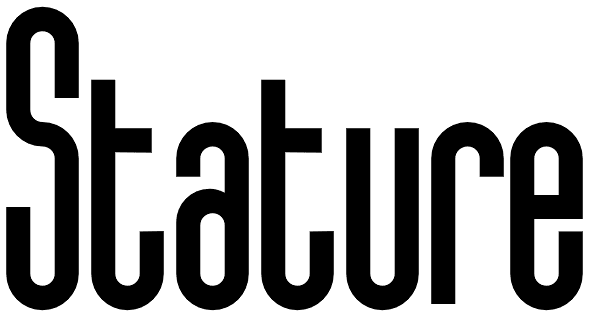
Stature
Stature is an original, clean and crisp, sans serif compressed font, which can be used for text or as an effective display font. The font includes upper and lowercase alphabets, numbers, punctuation, accented characters, symbols, and miscellaneous...